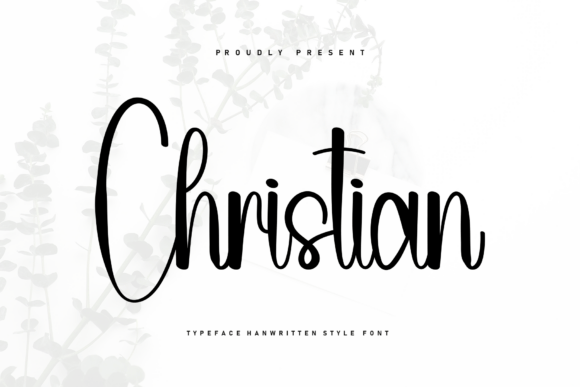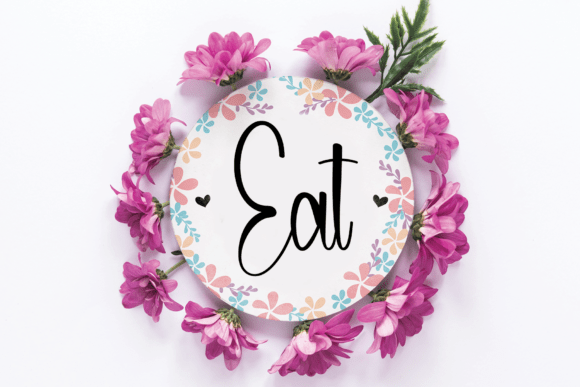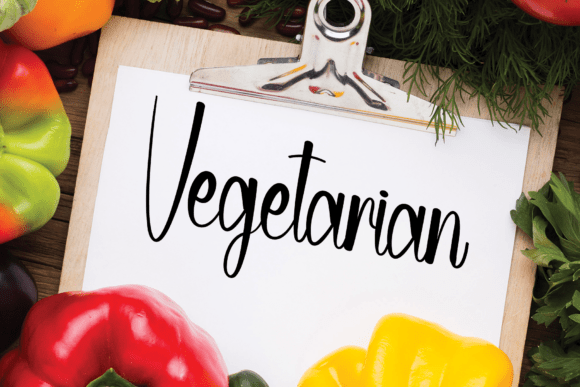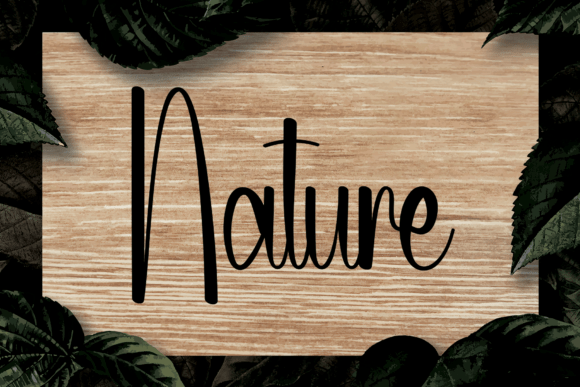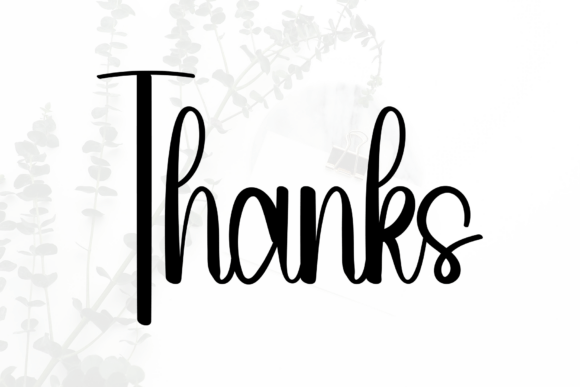
You know that moment when you’re working on a design project and you just can’t seem to find the right font to bring it all together? It’s like the missing piece of a puzzle, and you can almost feel the design screaming for a more personal touch. That’s exactly when I fell in love with the Christian Font – a sweet and beautiful handwritten font that adds a cozy accent to any project.
The Christian Font is designed to make your designs feel more inviting and human. With characters that dance along the baseline, it’s perfect for creating a sense of movement and energy. Whether you’re designing a wedding invitation, a branding package, or a social media post, the Christian Font is sure to bring a touch of warmth and personality to your work.
As a designer, you know how valuable it is to have a versatile font that can be used across multiple projects. The Christian Font is a valuable addition to any designer’s toolkit, offering a unique and charming aesthetic that’s sure to set your designs apart from the crowd.
Christian Font Key Features
- Unique Characteristics: The font features a unique blend of modern and classic elements, with subtle flourishes and ornaments that add a touch of elegance and sophistication.
Christian Font Review
As a designer, I had the opportunity to work with the Christian Font, and I must say it’s an interesting typeface. ✨ The font’s unique combination of classic and modern elements makes it stand out in certain contexts.
The Christian Font’s strengths include its:
- ✨ Classic feel: The font’s roots in traditional typography give it a timeless quality that works well in formal settings.
- ✨ Legibility: The font is easy to read, even at smaller sizes, making it suitable for body text.
- ✨ Versatility: The font comes in a range of weights and styles, allowing for a lot of creative freedom.
- ⚠️ Limited expressiveness: The font’s classic feel can also make it feel a bit bland or unoriginal in certain situations.
- ⚠️ Not ideal for modern designs: The font’s traditional roots may make it feel out of place in modern or trendy designs.
Overall, the Christian Font is a solid choice for designers who want a classic, timeless feel. While it may not be the most exciting or original font, it’s a reliable option that works well in a variety of contexts.
Getting the Most Out of Christian Font
To get the most out of the Christian Font, consider the following tips:
- Use the font consistently throughout your design to create a cohesive look.
- Experiment with different font sizes and styles to add emphasis and hierarchy to your design.
- Pair the Christian Font with other fonts to create a visually appealing contrast.
The Christian Font is commonly used in:
- Church bulletins and newsletters.
- Christian event invitations and promotional